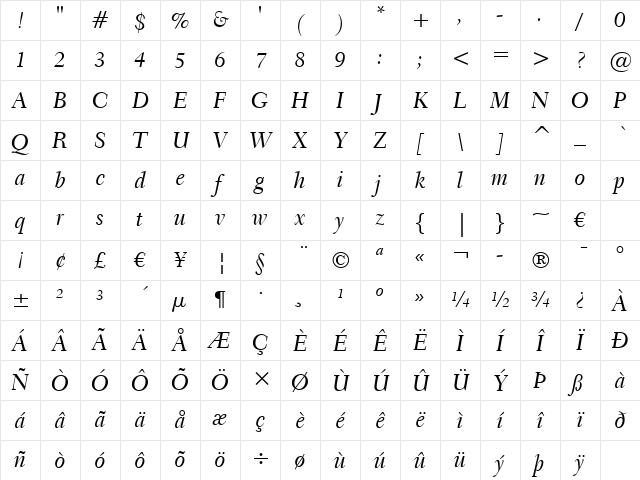
Complete Transit551 Md BT Medium Italic glyph index. Displaying only characters natively supported by Transit551 Md BT Medium Italic font.
Transit551 Md BT is a composed and adaptable typeface that performs quietly and consistently across a wide range of design contexts. The slanted form adds forward momentum and visual energy.